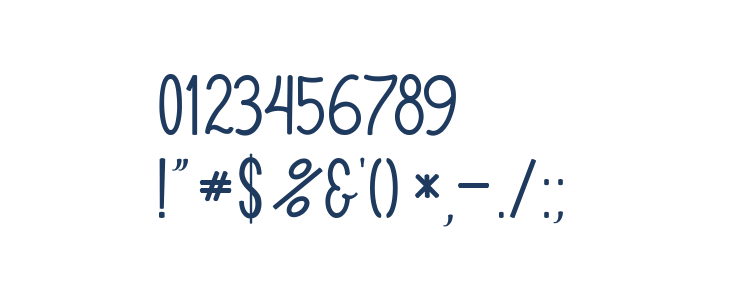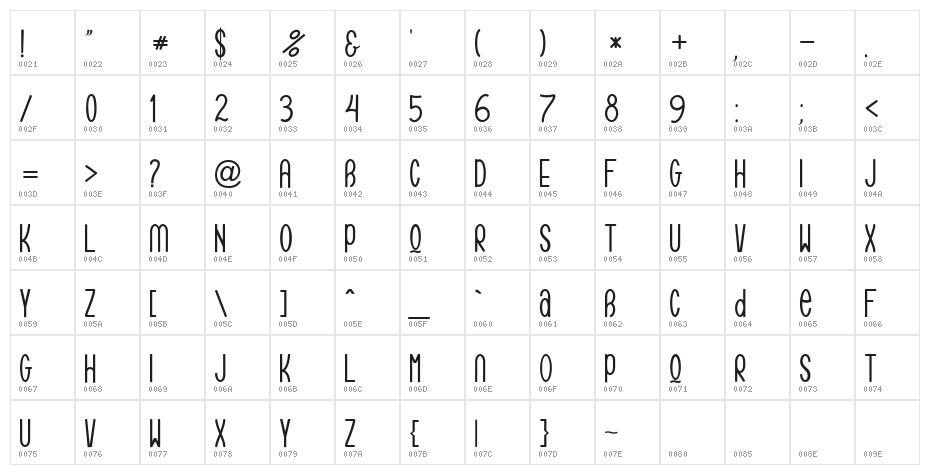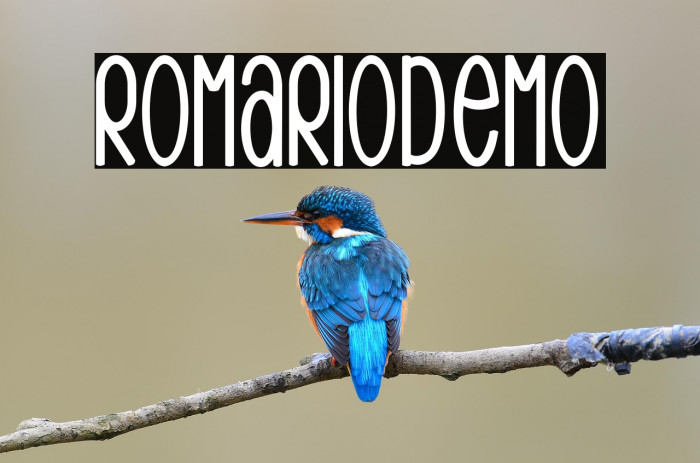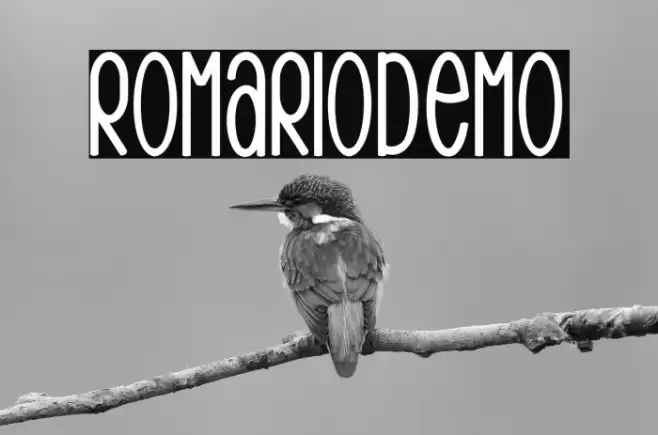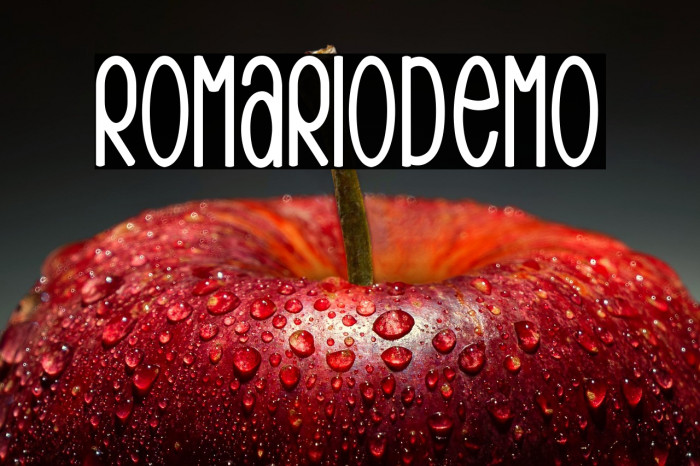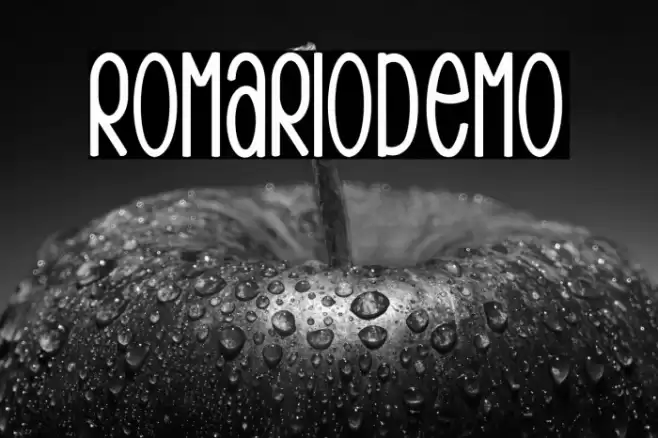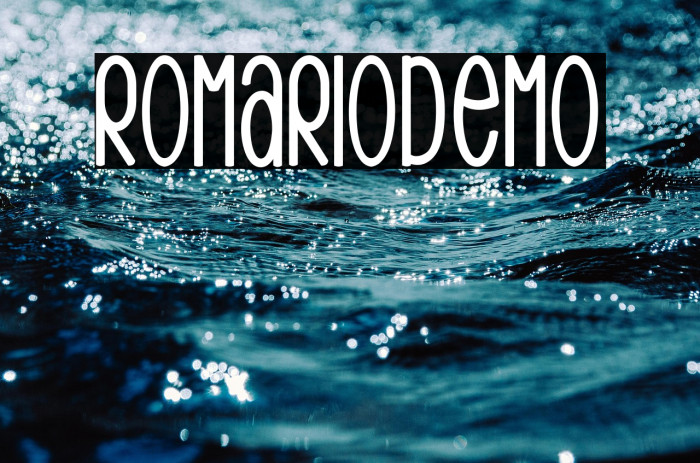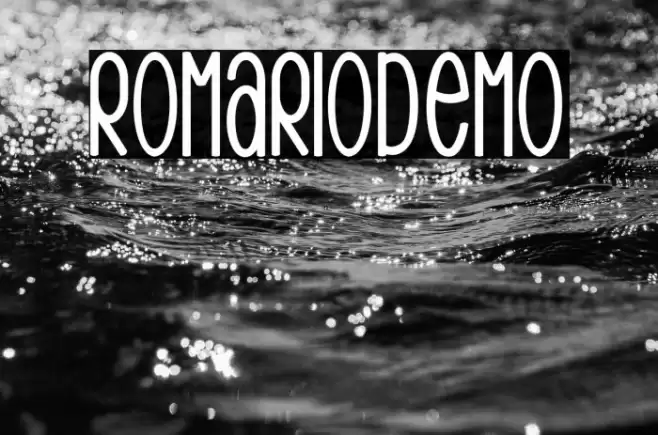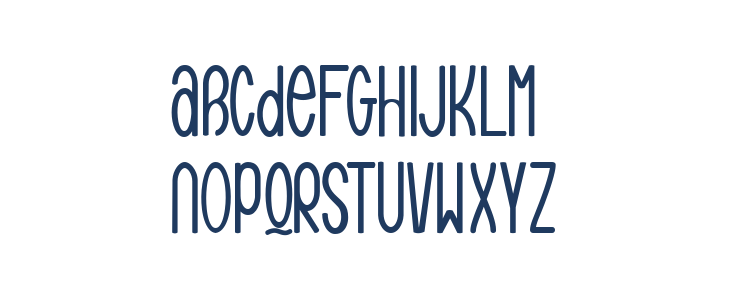
RomarioDemo Font
RomarioDemo Description
This font features a unique and playful design with elongated and narrow characters, giving it a distinct and modern appearance. The uppercase and lowercase letters maintain a consistent height, contributing to a cohesive look. The numerals are styled to match the letterforms, ensuring uniformity across all characters. Special characters are included, each designed to complement the overall aesthetic. The font's clean lines and smooth curves make it versatile for various design applications, while its narrow form factor allows for efficient use of space.
| Proposed Projects | Ideal for creative projects such as posters, branding, and packaging design where a modern and playful touch is desired. |